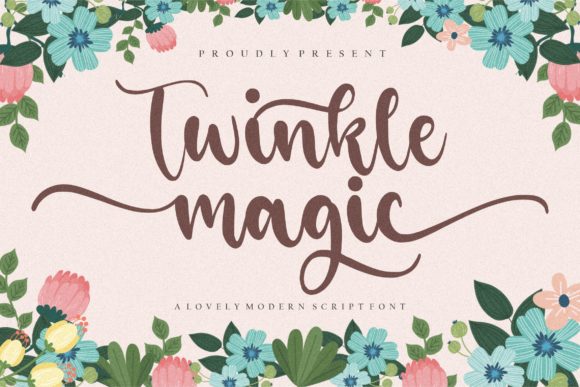
In a world craving uniqueness, meet Twinkle Magic: a font born of enchantment, a symphony of handwritten grace. This exquisite script font, crafted by the talented Balpirick, is your gateway to a world of heartfelt expressions and timeless elegance.
Twinkle Magic isn't just a font; it's an ambassador of emotions, a visual storyteller that weaves magic into your designs. Its flowing strokes, reminiscent of a gentle breeze dancing across a canvas, carry an undeniable charm that captivates the senses. Dive into a world of boundless creativity, where every letter is a brushstroke of artistry, every word a testament to your unique story.
With Twinkle Magic, your designs transcend the ordinary, embracing a realm of enchantment and whimsy. Picture wedding invitations adorned with swirling calligraphy, as if written by a celestial hand. Envision logos that dance with personality, their letters like sparkling stars against a midnight sky. Create apparel that tells a tale, where each garment whispers of enchantment and wonder.
But Twinkle Magic's magic extends far beyond the traditional. Its versatility knows no bounds, making it a perfect companion for branding, social media graphics, and even website design. It's a font that adapts seamlessly, adding a touch of magic to every project it graces.
And the best part? Twinkle Magic comes PUA encoded, granting you effortless access to a treasure trove of beautiful glyphs and swashes. Unleash your creativity and explore the infinite possibilities, crafting designs that shimmer with individuality and leave a lasting impression.
Join the ranks of those who dare to dream, those who embrace the power of Twinkle Magic. Let your designs sparkle with enchantment, let your words dance with grace, and let your brand shine with a touch of magic. Twinkle Magic: where elegance meets enchantment, where creativity knows no bounds.